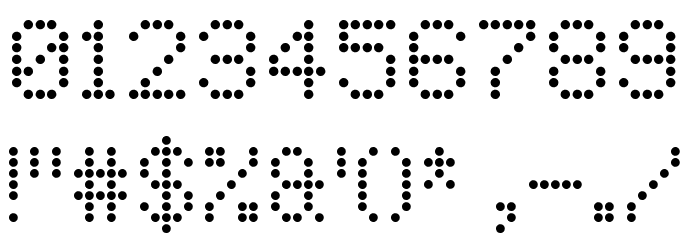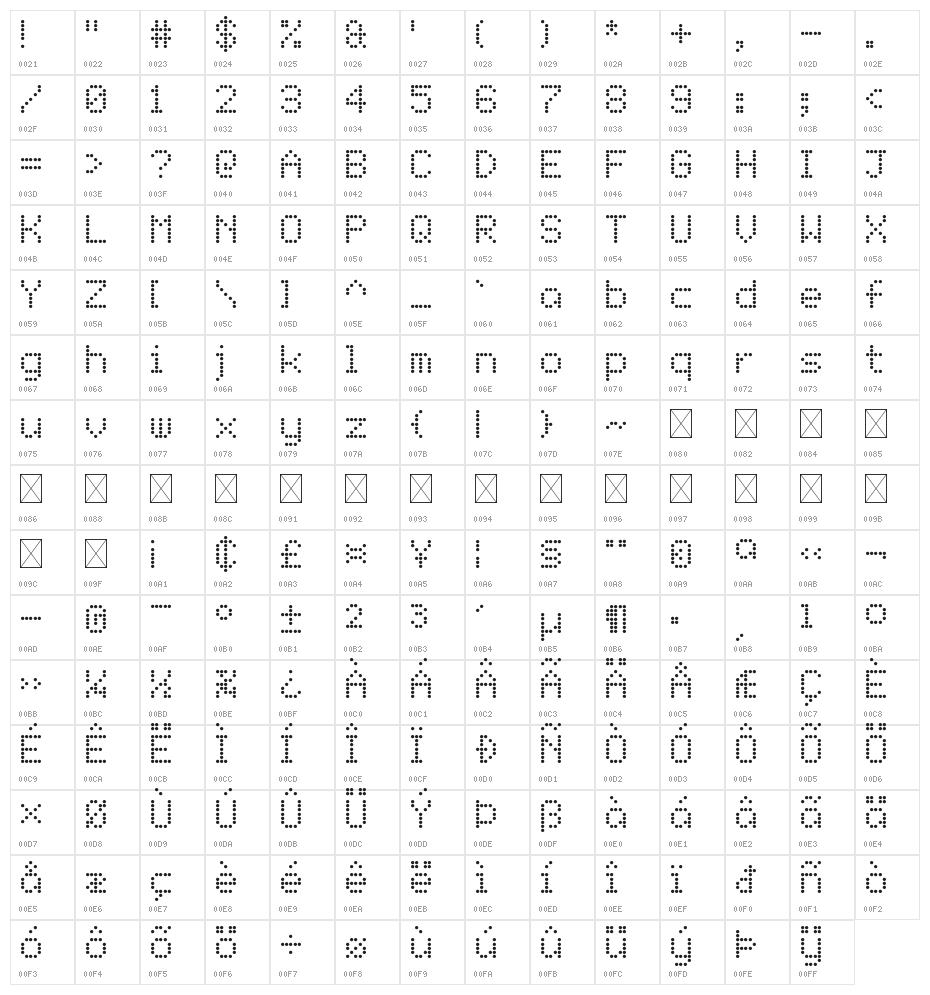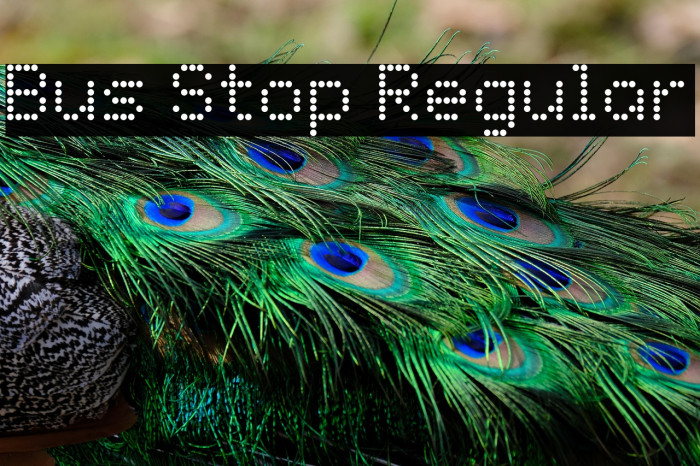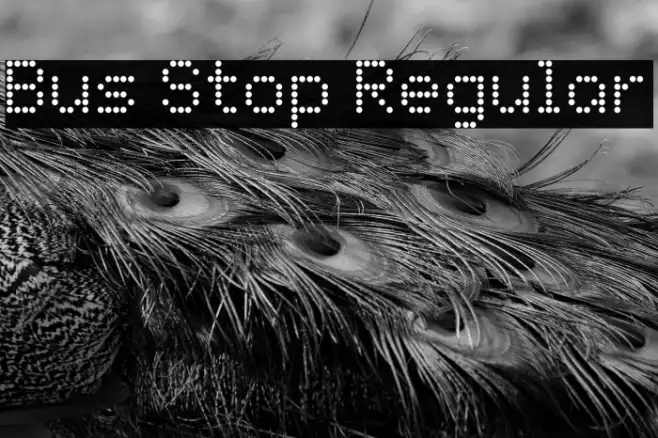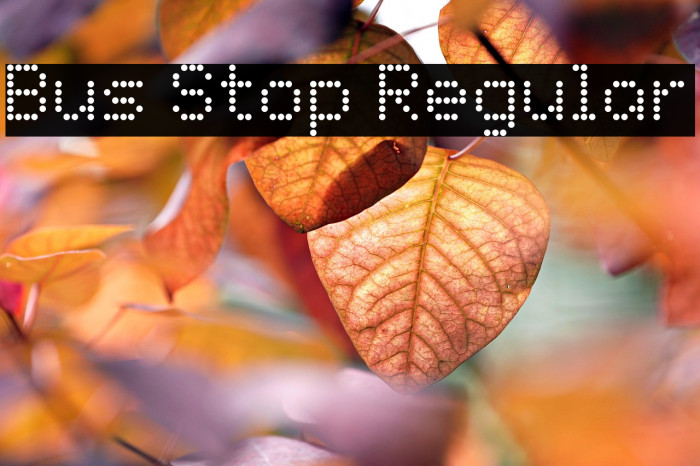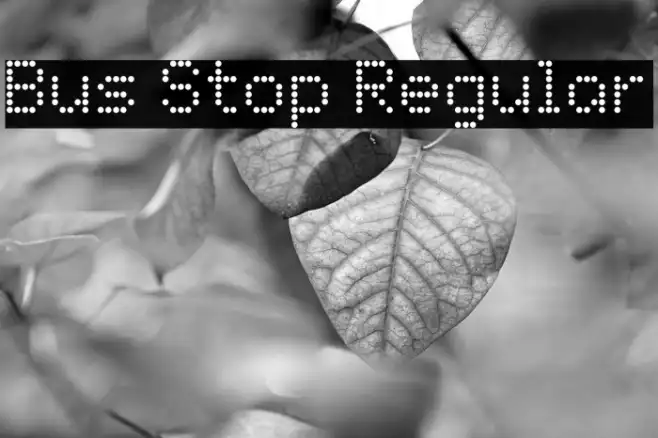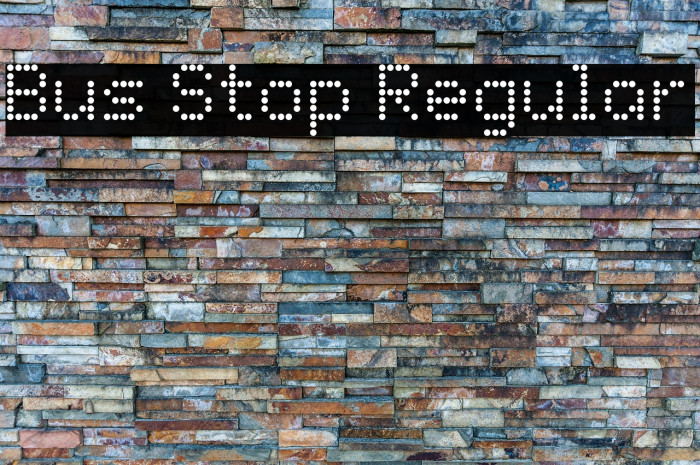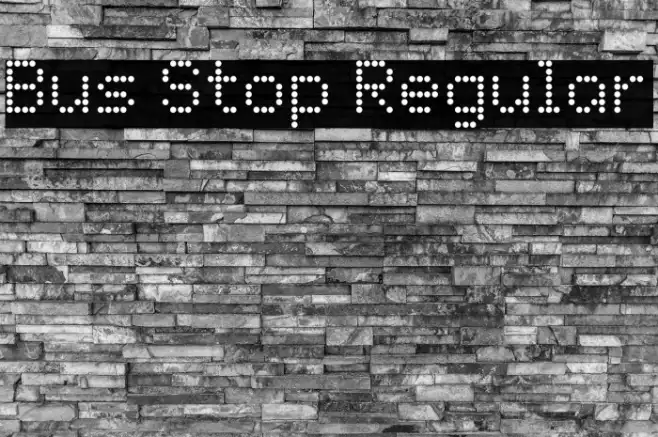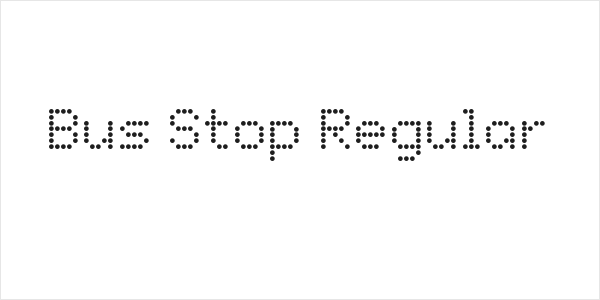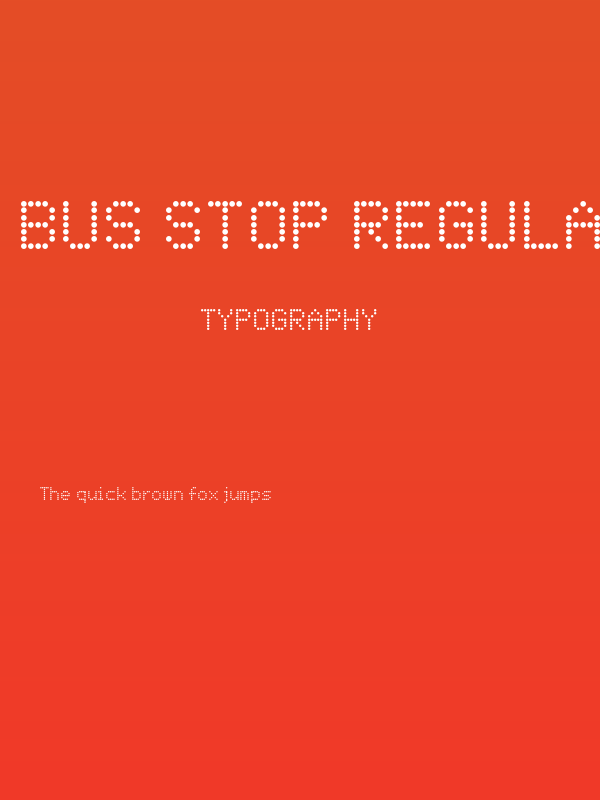
Bus Stop Regular Font
Bus Stop Regular Description
This font features a unique dot matrix style, where each character is composed of a series of evenly spaced dots. The design is reminiscent of digital displays or LED signs, providing a modern and technological aesthetic. The characters are uniformly constructed, giving a consistent and cohesive appearance across both uppercase and lowercase letters, as well as numbers and special symbols. The spacing between the dots is precise, creating a clean and organized look. This font is ideal for projects that require a futuristic or digital theme, offering a distinctive and eye-catching visual impact.
| Use Case | Logos, Headlines, Digital displays |
| Proposed Projects | Ideal for digital displays, tech-themed posters, electronic device interfaces, and modern branding. |